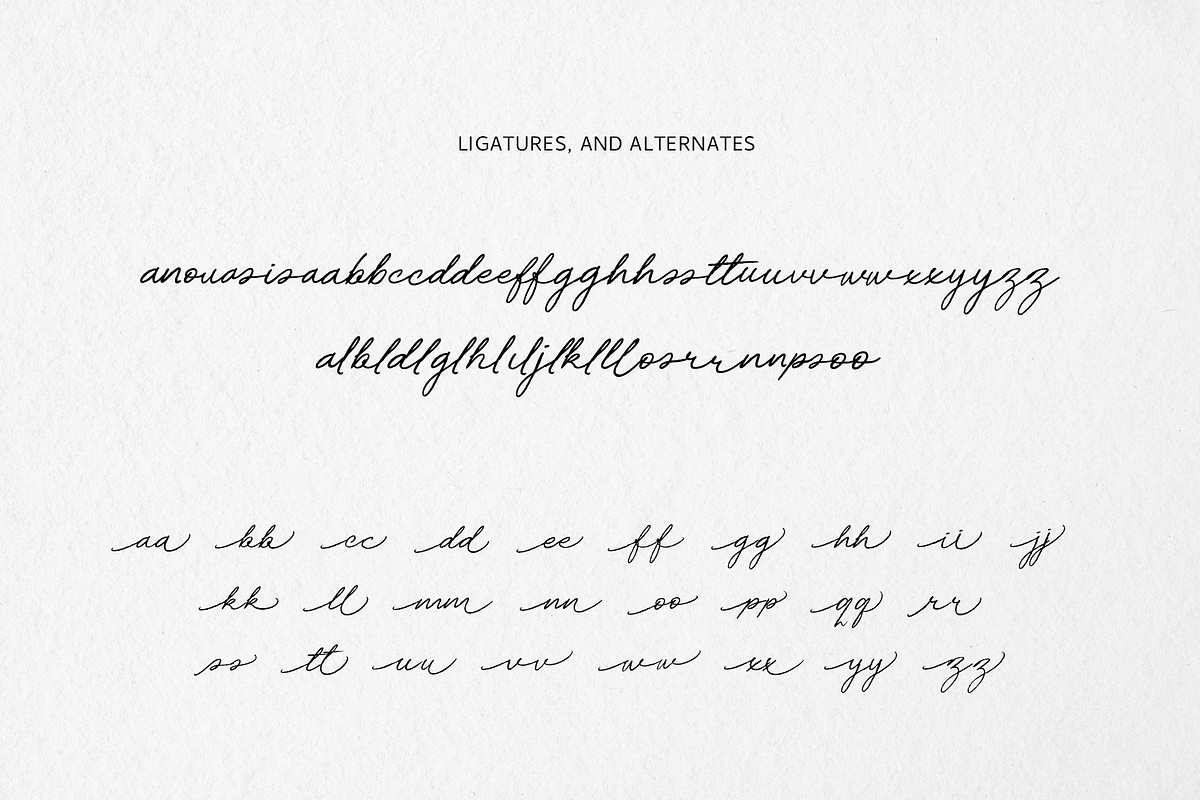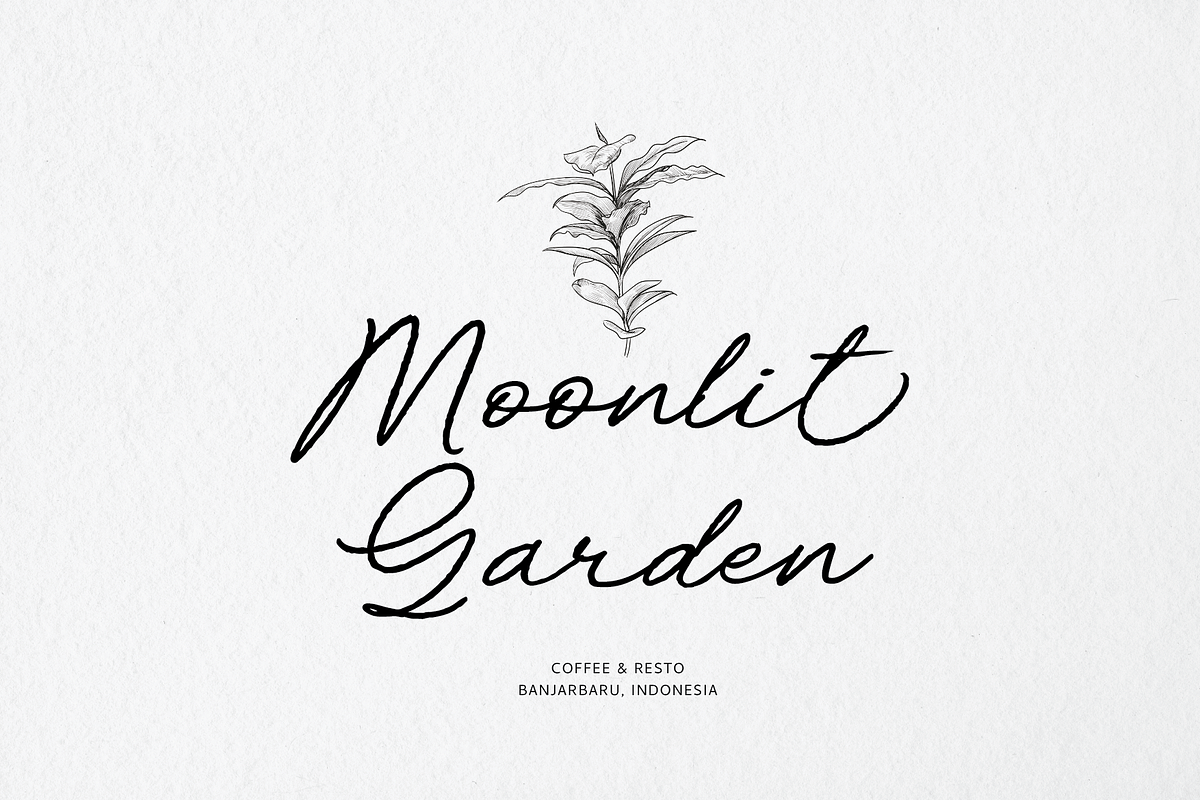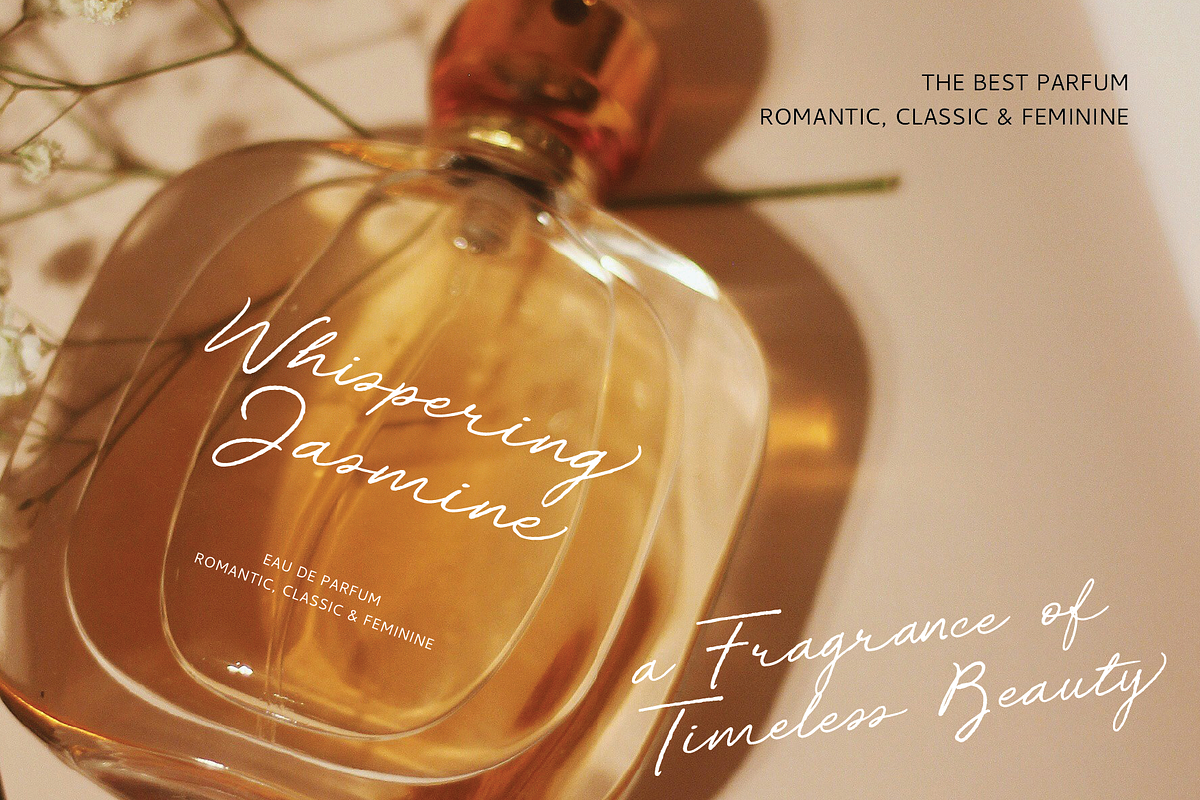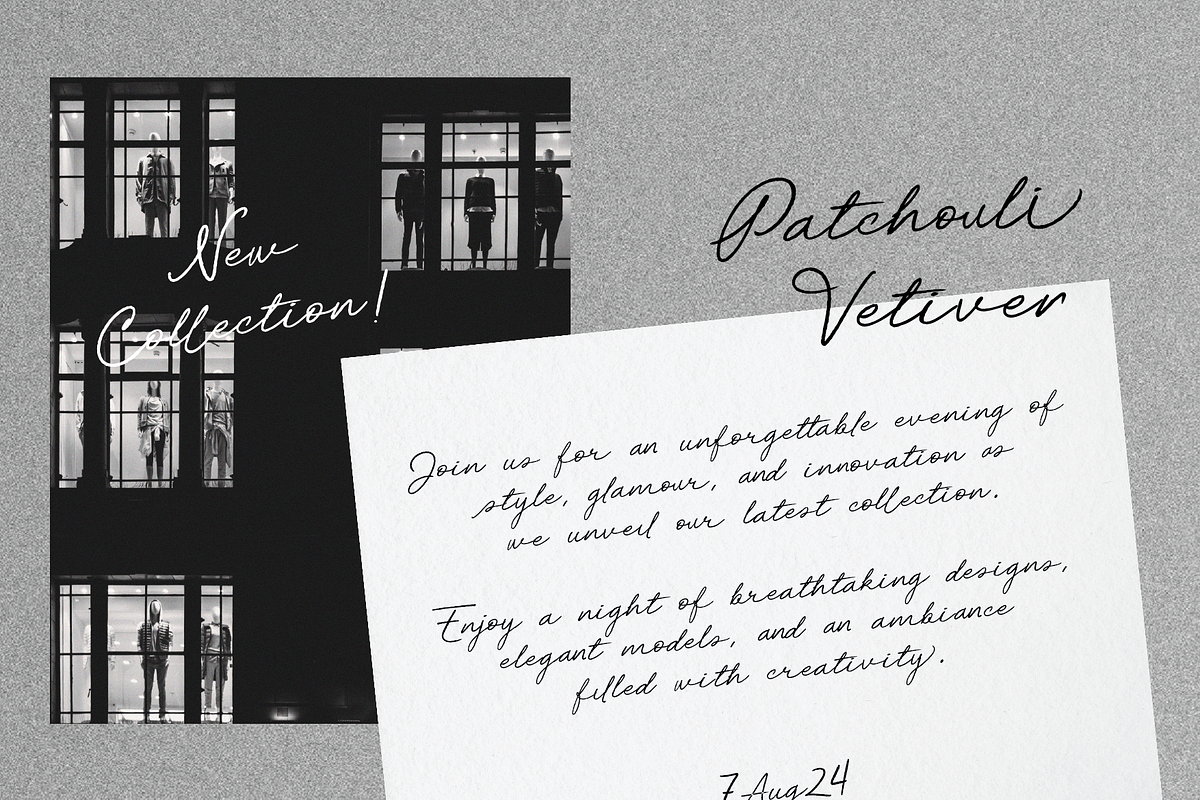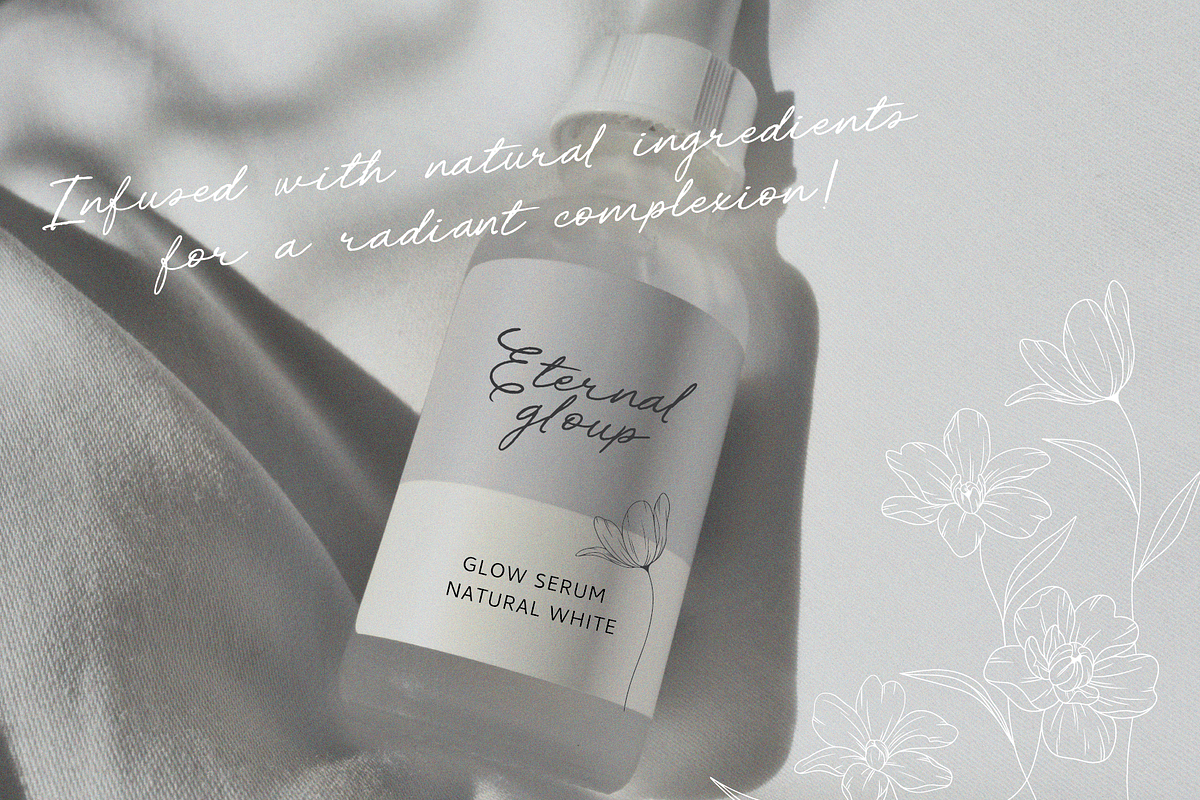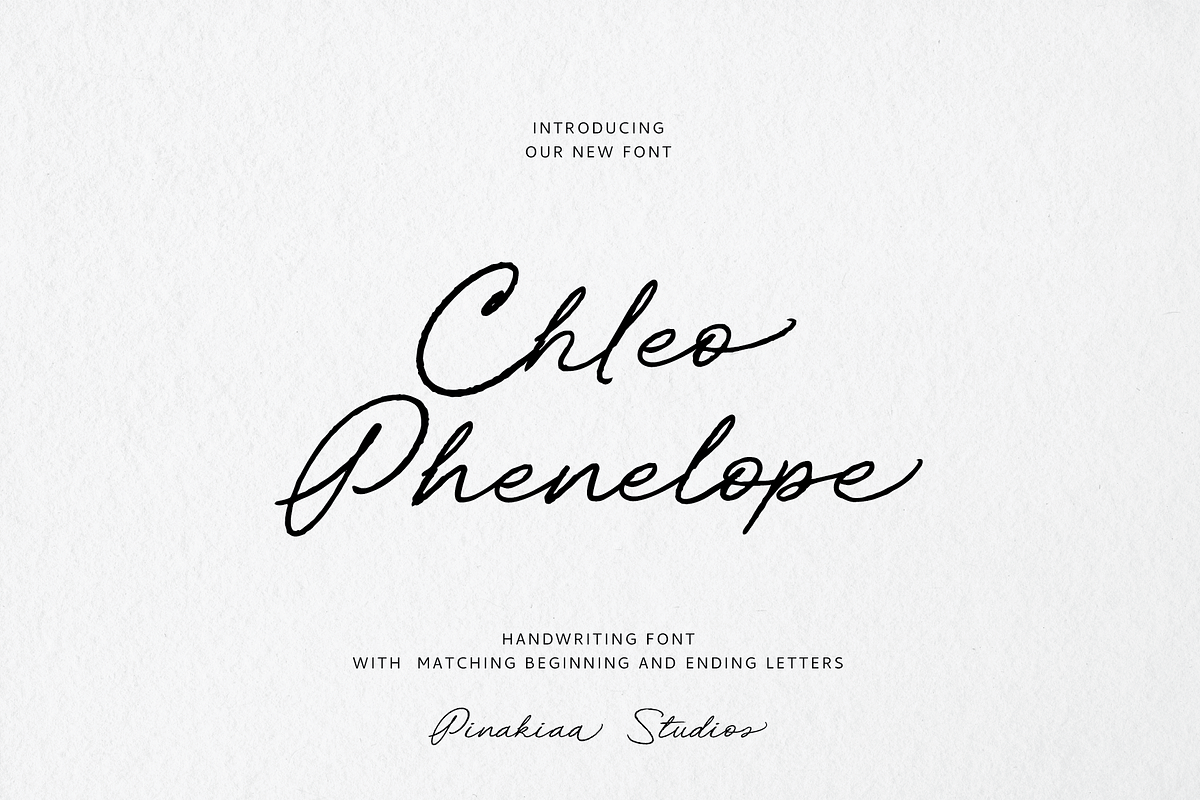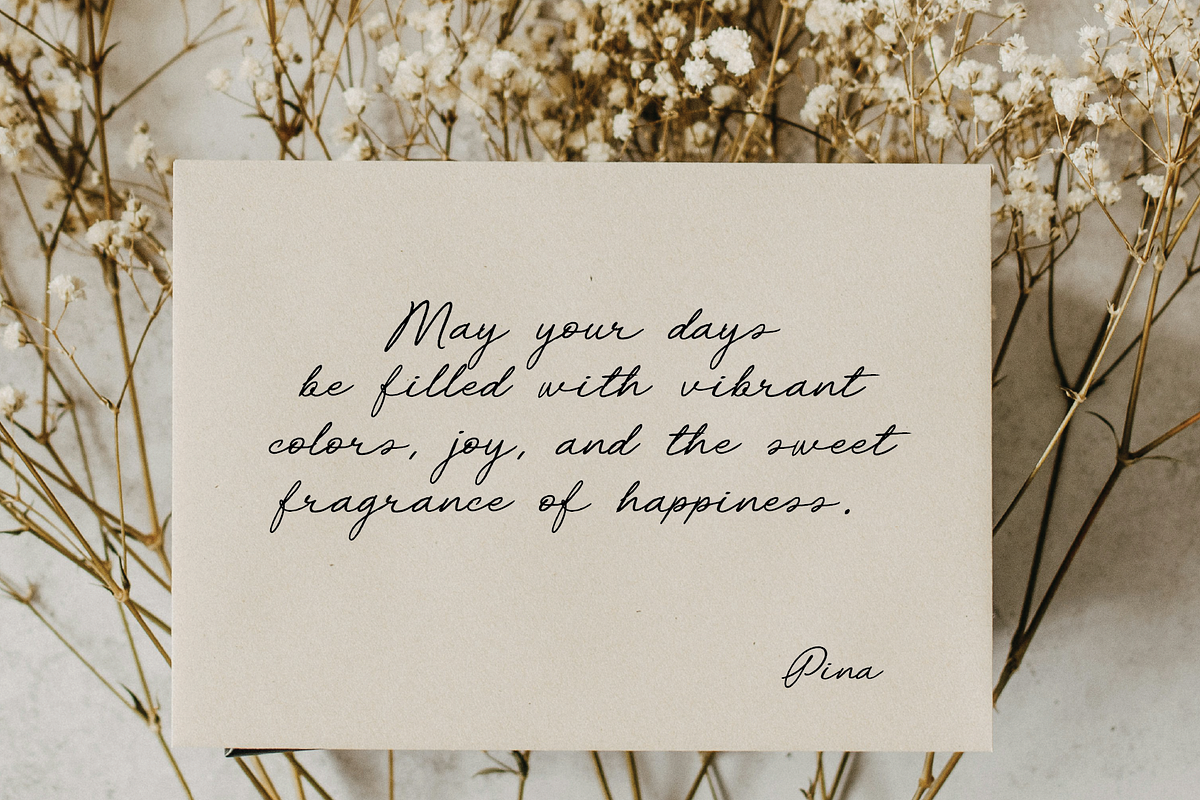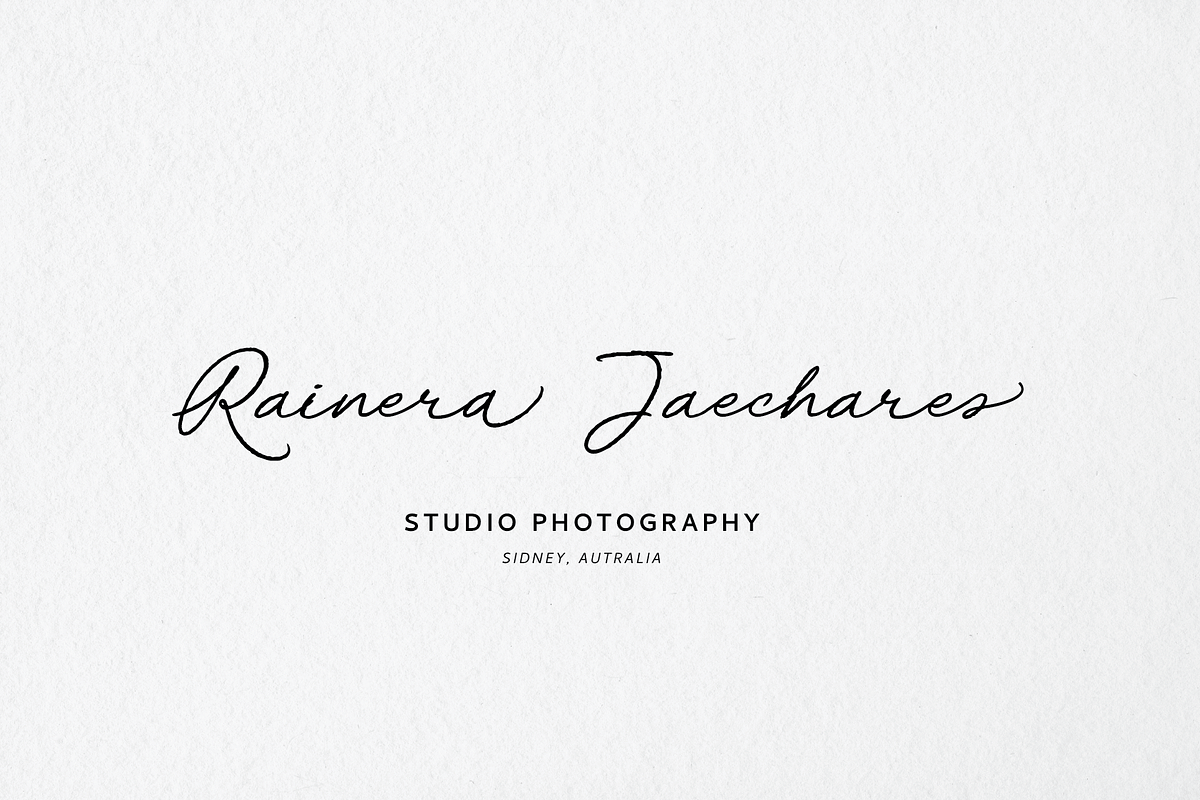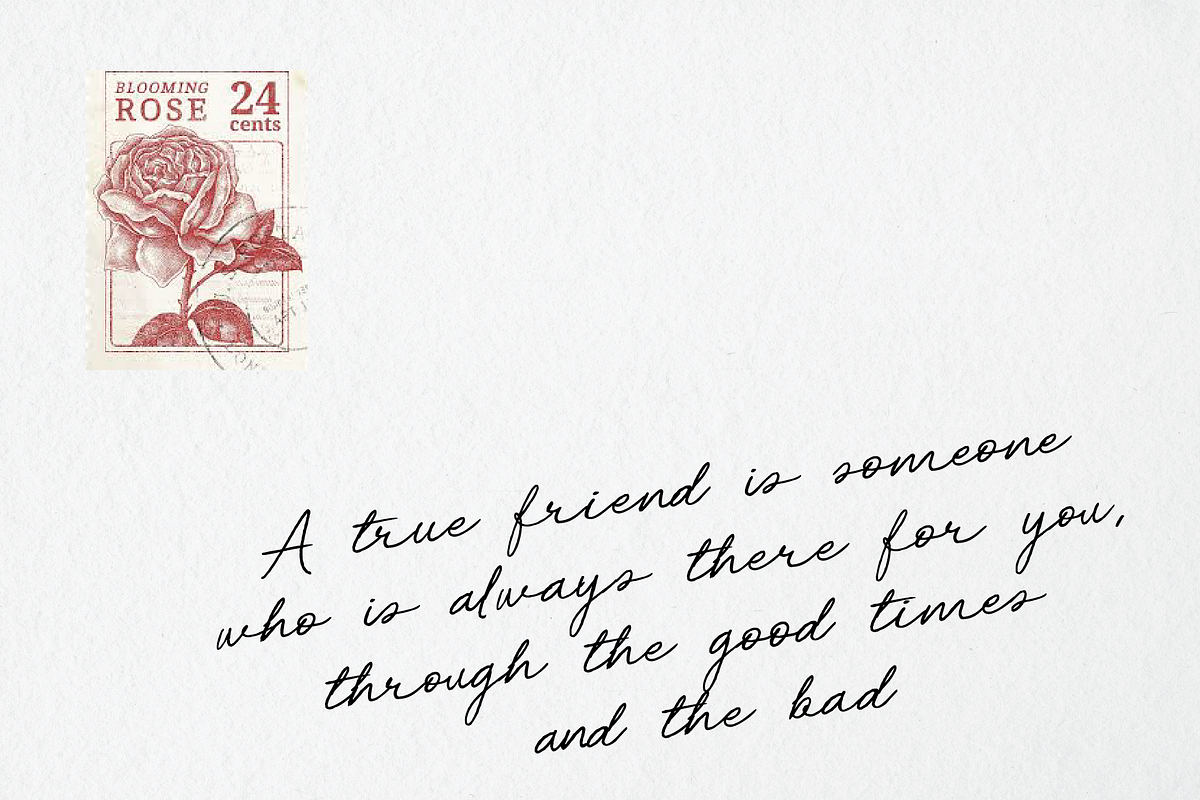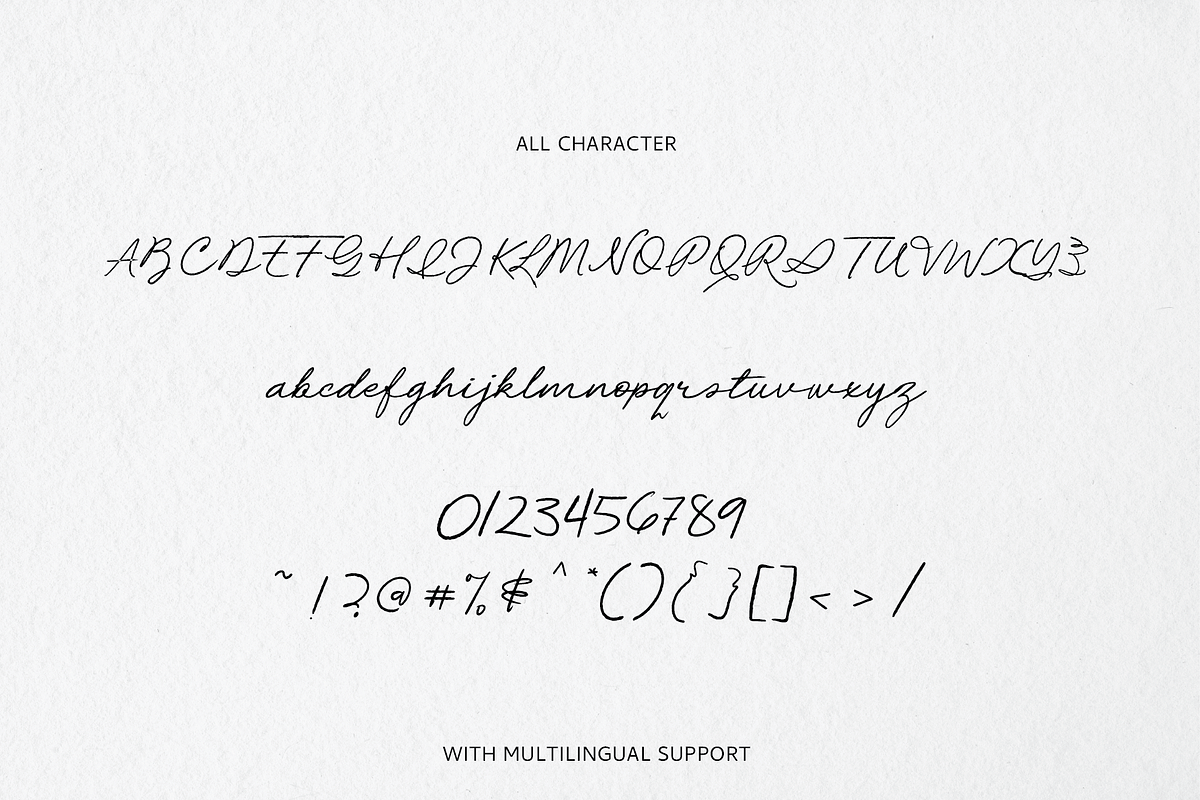
Chleo Phenelope Handwriting
Introducing our new font "Chloe Phenelope Handwriting" a beautifully crafted handwriting font that brings elegance and sophistication to your creative projects. This font is perfect for adding a personal touch and a sense of style to your designs.
Chleo Phenelope has 3 alternative styles, which you can combine, and also ligatures which will make your project more beautiful and look like real handwriting :)